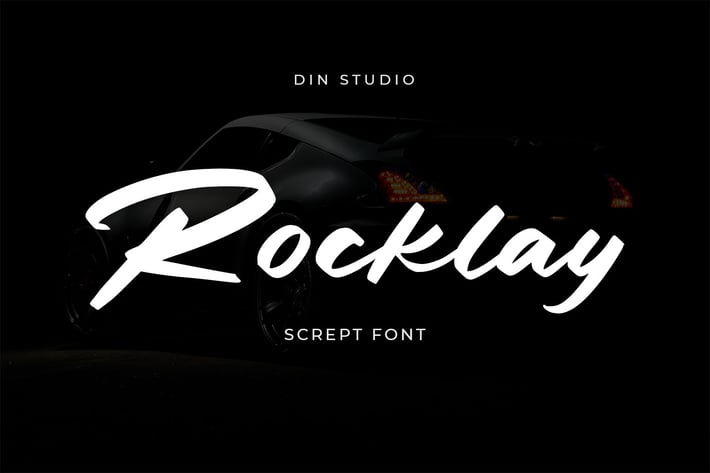
Rocklay Script Font
Rocklay is a bold script font. With a classy and natural style, it brings beautiful typeface. Rocklay is best used for branding, logotype, and quotes.